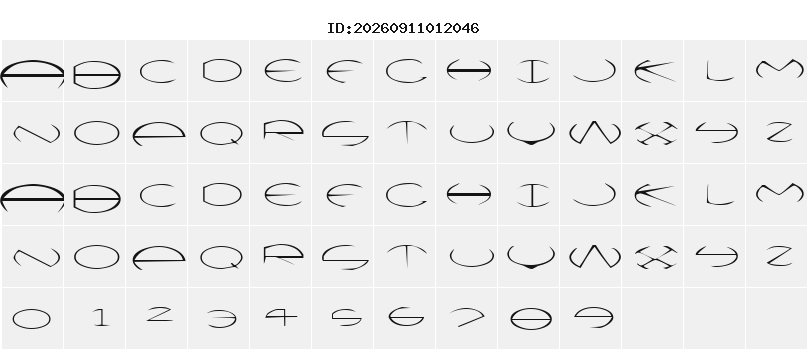
Victor Preview
• Font Name: Victor
• Full Font Name: Victor
About Victor.ttf
Victor.ttf is a modern, elegant sans-serif font designed for ultimate readability and visual harmony. Perfect for branding, headlines, web design, and print materials.